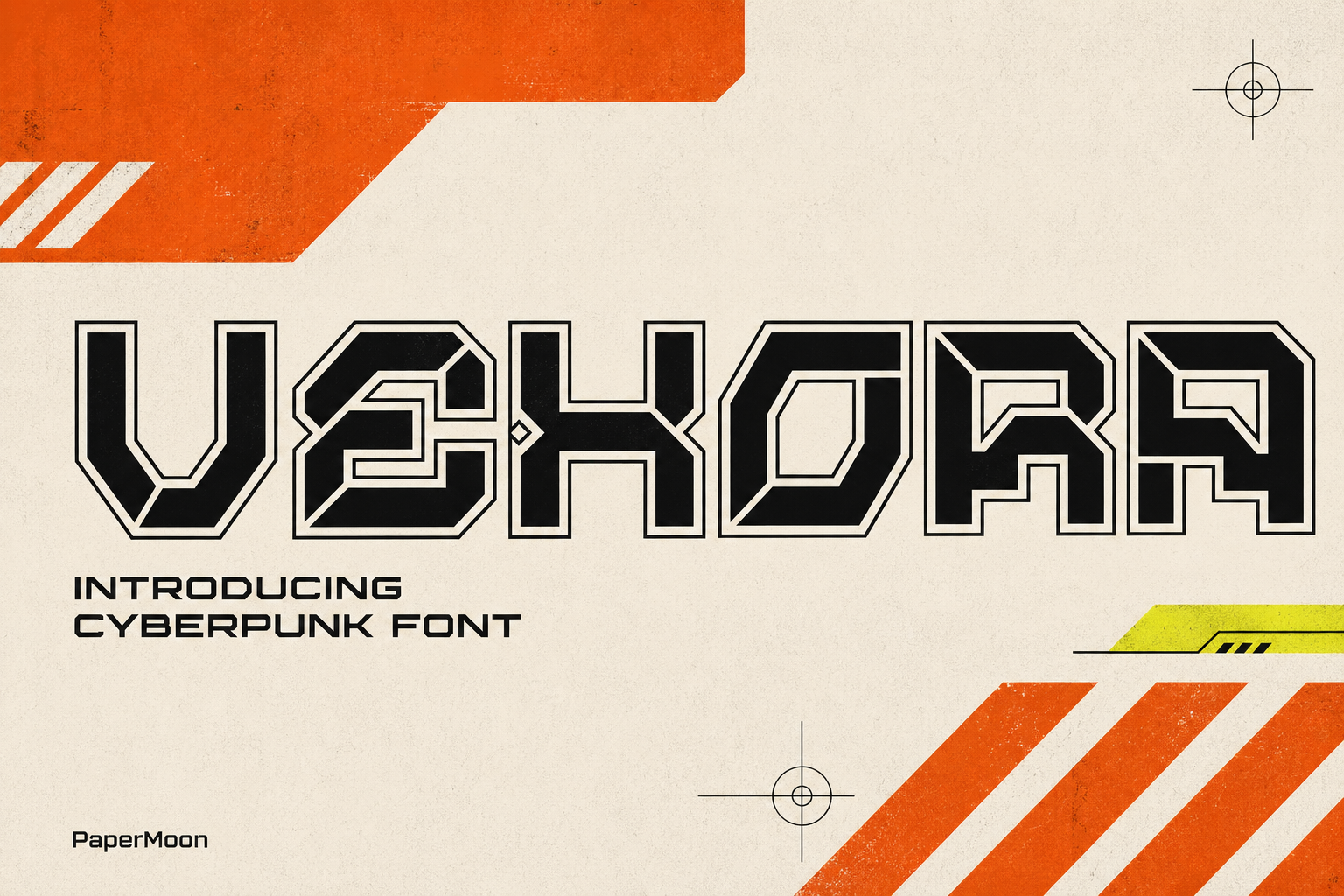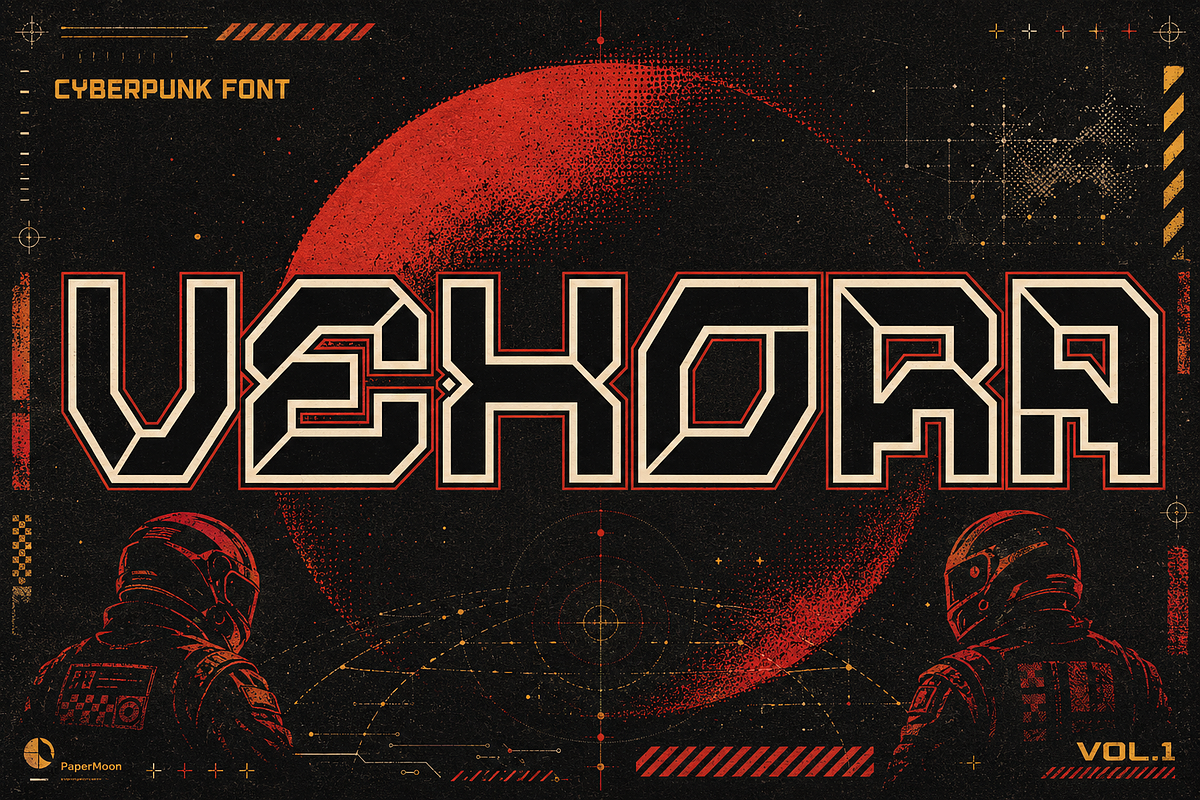
Vexora - Cyberpunk Display Font
Sharp digital lettering meets neon-charged atmosphere in Vexora, a cyberpunk display font built for futuristic visual work. Its angular, segmented construction brings circuitry-inspired energy to titles, logos, posters, and game interfaces without losing the clarity you need at display sizes.
Vexora is a coordinated family of 5 styles: Regular, One, Two, Three, and Four. Use the base style for a clean high-tech statement, then switch between the numbered variants to create contrast, layered title treatments, or a more experimental sci-fi look. Each variant includes 212 glyphs with basic Latin coverage, plus supported OpenType alternates and ligatures for added flexibility.
5 coordinated variants: Regular, One, Two, Three, and Four give you multiple directions for one visual identity.
Angular segmented forms: A circuitry-inspired display style adds sharp cyberpunk character to prominent lettering.
OpenType features: Supported alternates and ligatures help you customize selected letter combinations and treatments.
Basic Latin coverage: Includes uppercase, lowercase, numerals, and punctuation for everyday English-language design work.
Vexora is made for game titles, sci-fi posters, tech event graphics, digital interfaces, futuristic branding, logos, packaging, magazine covers, stickers, and cyberpunk merchandise. It works especially well when your headline needs to feel engineered, electric, and unmistakably digital. Build a bold title card, give a tech brand a memorable wordmark, or create a complete visual system by combining the five coordinated variants.
Bring a stronger signal to your next sci-fi, gaming, or technology project with Vexora.